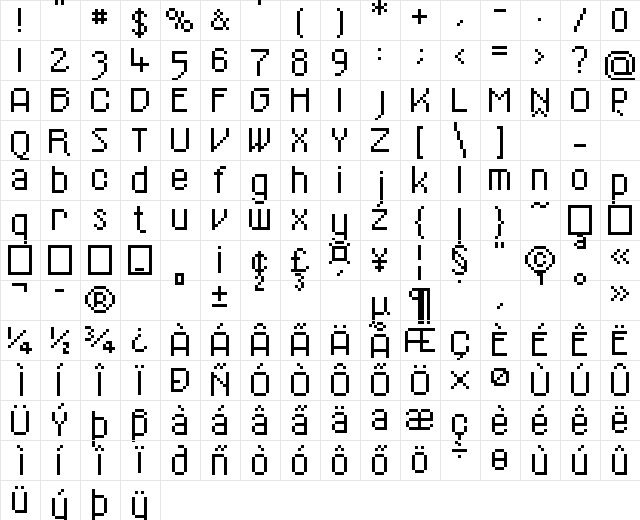
01Cinematix Regular Font Preview
01Cinematix Regular
01Cinematix Regular Font Details
Design Context for 01Cinematix Typeface
01Cinematix takes a measured approach to typography — its balanced proportions and neutral character make it a reliable workhorse for both digital and print work.